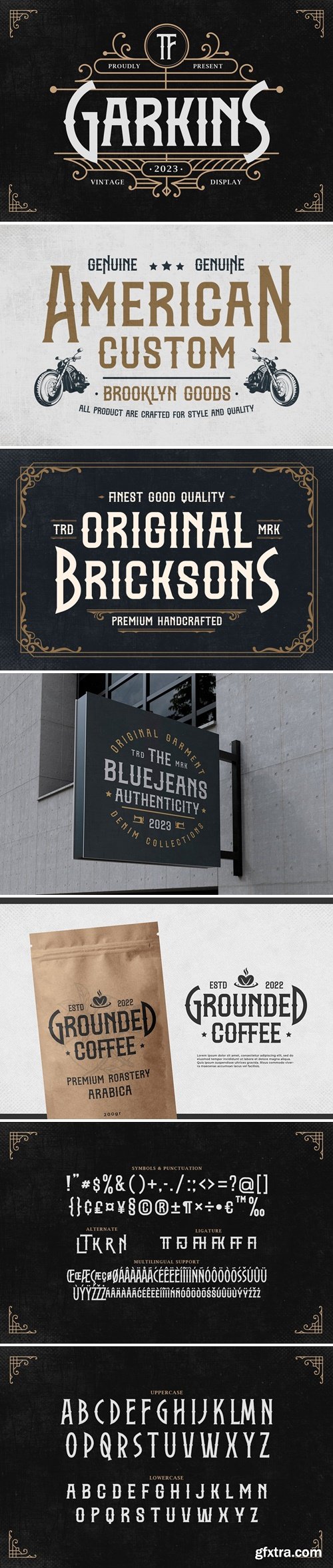
Garkins - Vintage Font Pack
Add a touch of nostalgia to your designs with Garkins, a premium vintage-inspired font pack. This curated collection of 4 distinctive fonts is perfect for creating striking headlines, titles and body text with a classic, retro feel. Suitable for logo design, branding and identity, print design (posters, flyers, brochures), digital designs (social media, web, email), signage, advertising, and packaging design.
Features:
Uppercase
Lowercase
Symbols & Punctuation
Numeral
Ligature
Alternate
Multilingual Support